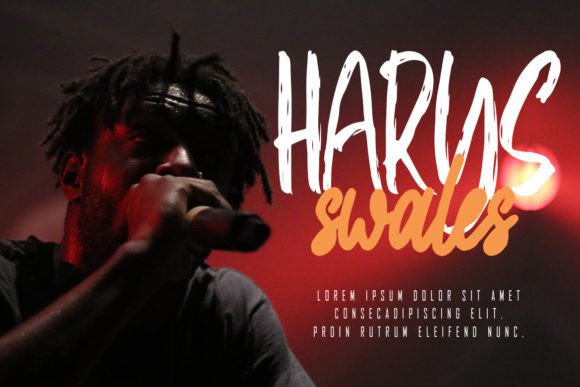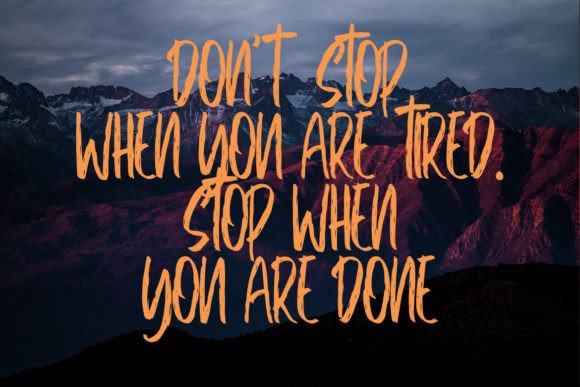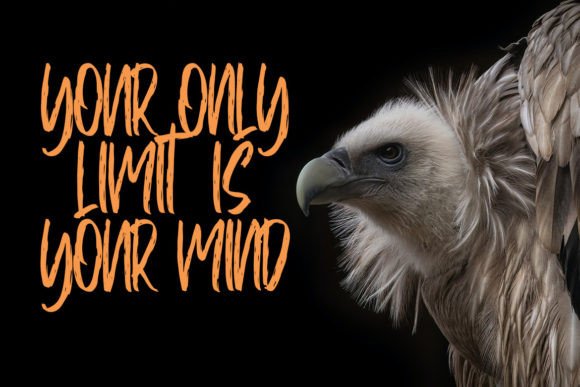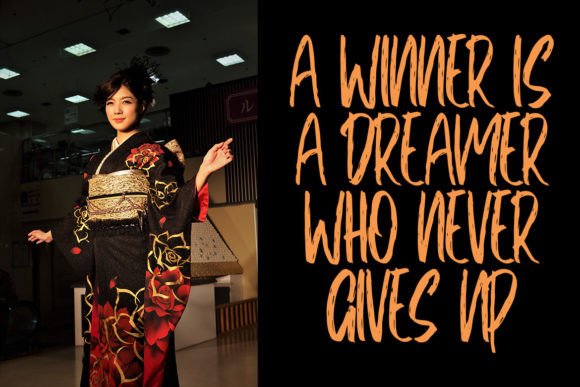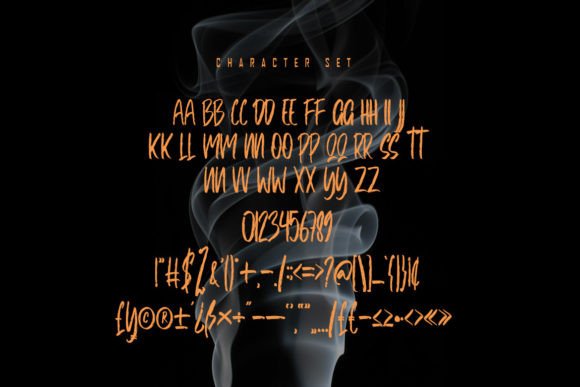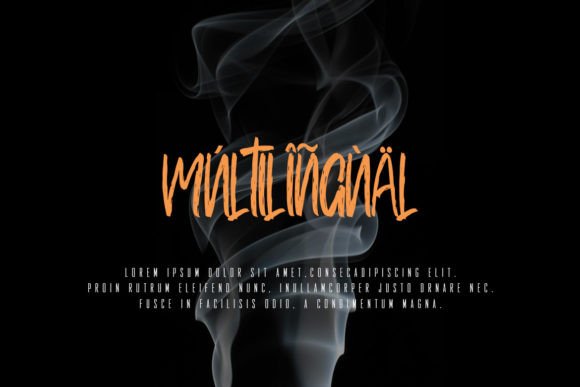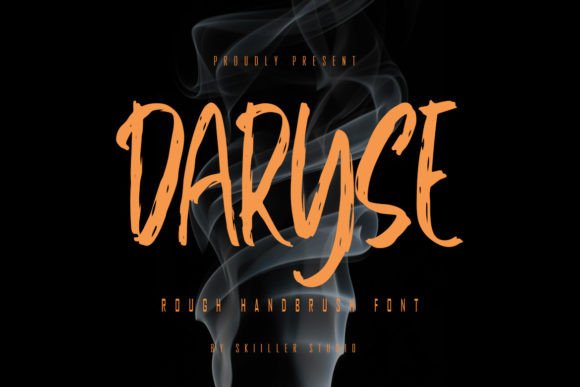
Daryse Font: Elevate Your Designs with a Unique Dry Hand-Brushed Style
Are you tired of using the same old fonts in your designs? Look no further than Daryse, a dry hand-brushed font that is perfect for creating stunning handwriting quickly and easily. In this article, we’ll dive into the features and benefits of Daryse, and explore how you can use it to take your designs to the next level.
What is Daryse Font?
Daryse is a unique and versatile font that is designed to combine perfectly with a variety of design elements. Its dry hand-brushed style gives it a distinctive, organic look that is perfect for creating a wide range of designs, from logos and product packaging to handwritten quotes, headers, posters, merchandise, social media graphics, and greeting cards.
Key Features of Daryse Font
• Dry Hand-Brushed Style: Daryse’s dry hand-brushed style gives it a unique, textured look that is perfect for creating designs that stand out.
• Easy to Use: Daryse is designed to be easy to use, even for those with limited design experience. Simply download the font and start creating!
• Highly Versatile: Daryse is perfect for a wide range of design applications, from logos and product packaging to social media graphics and greeting cards.
• Stunning Handwriting: With Daryse, you can create stunning handwriting quickly and easily, without the need for hours of practice or expensive design software.
Benefits of Using Daryse Font
So why should you choose Daryse for your design needs? Here are just a few benefits of using this unique and versatile font:
• Add a Personal Touch: Daryse’s hand-brushed style gives your designs a personal, human touch that is hard to replicate with traditional fonts.
• Stand Out from the Crowd: With its unique dry hand-brushed style, Daryse is sure to help your designs stand out from the crowd and grab attention.
• Save Time and Effort: Daryse is designed to be easy to use, saving you time and effort when creating designs.
• Perfect for Designers and Crafters: Whether you’re a professional designer or a crafter looking to add a personal touch to your projects, Daryse is the perfect choice.
Design Ideas Using Daryse Font
So what can you create with Daryse? Here are just a few design ideas to get you started:
• Logos: Use Daryse to create a unique and memorable logo for your business or brand.
• Handwritten Quotes: Add a personal touch to your quotes and sayings with Daryse’s beautiful hand-brushed style.
• Product Packaging: Use Daryse to add a personal touch to your product packaging and make it stand out on store shelves.
• Headers and Posters: Create eye-catching headers and posters with Daryse’s dry hand-brushed style.
• Merchandise: Use Daryse to create custom merchandise, such as t-shirts, mugs, and tote bags.
• Social Media Graphics: Add a personal touch to your social media graphics with Daryse’s unique hand-brushed style.
• Greeting Cards: Use Daryse to create beautiful and personalized greeting cards for special occasions.
Font Name Daryse Font
Author Skiiller Studio
In conclusion, Daryse is a unique and versatile font that is perfect for designers and crafters looking to add a personal touch to their designs. With its dry hand-brushed style and ease of use, Daryse is sure to help you create stunning handwriting quickly and easily. Whether you’re looking to create logos, handwritten quotes, product packaging, headers, posters, merchandise, social media graphics, or greeting cards, Daryse is the perfect choice. So why wait? Download Daryse today and start elevating your designs to the next level!